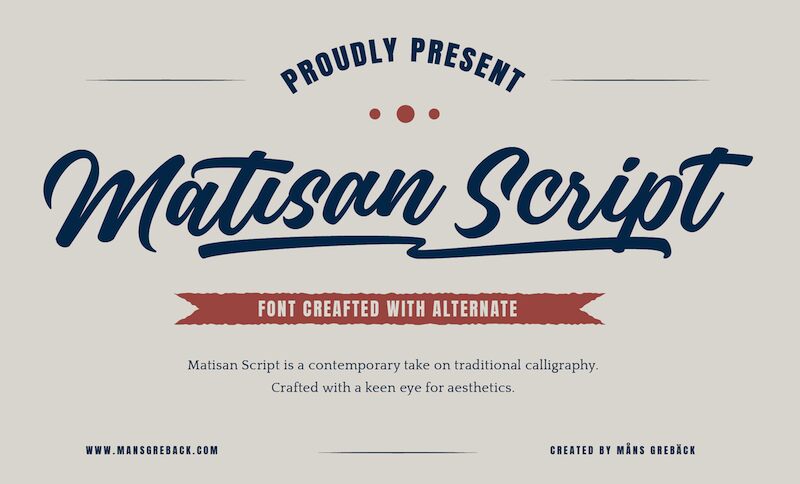
Matisan Script Alt PERSONAL Regular
Matisan Script Alt, a creation of Mans Greback, flows onto the page with an elegance that embodies the warmth of human touch. Its handwritten style exudes a charming personality, with letters that dance between casual and refined. The fluidity of Matisan Script Alt's strokes suggests a natural, organic form, perfect for invitations, branding, and advertising where a personal and approachable feel is paramount.
This font entices the eye with its smooth curves and gentle sweeps, making it ideal for projects that require a touch of sophistication without sacrificing an inviting atmosphere.
The calligraphic design of Matisan Script is characterized by its bold, yet delicate, brush strokes, imparting a sense of dynamism and motion.
Use one or multiple underscores _ anywhere in a word to make a swash.
Example: Ma_ster Wonder____woman